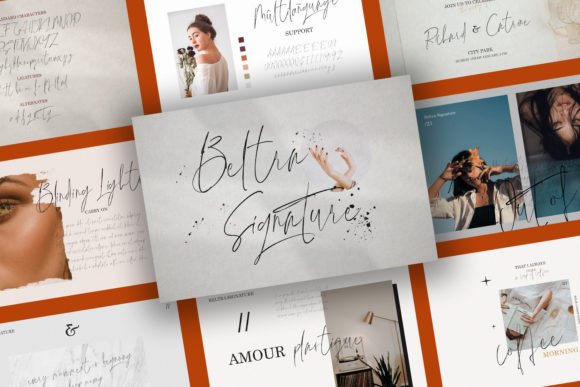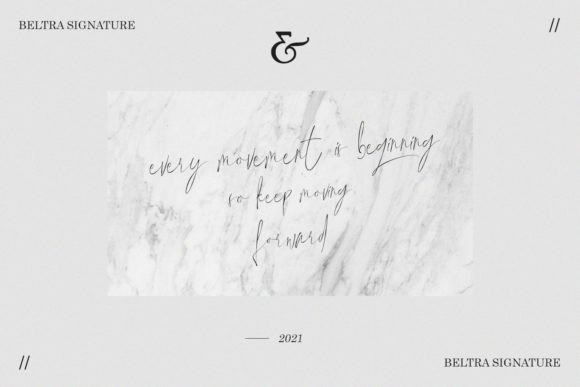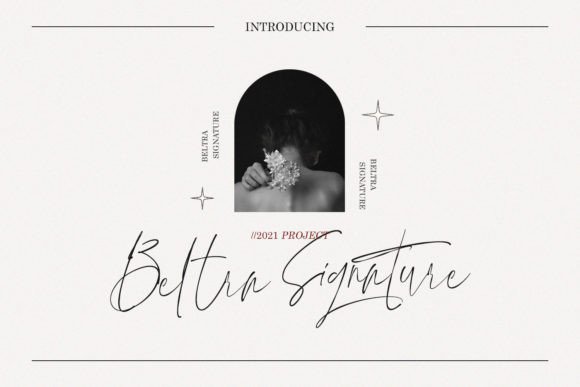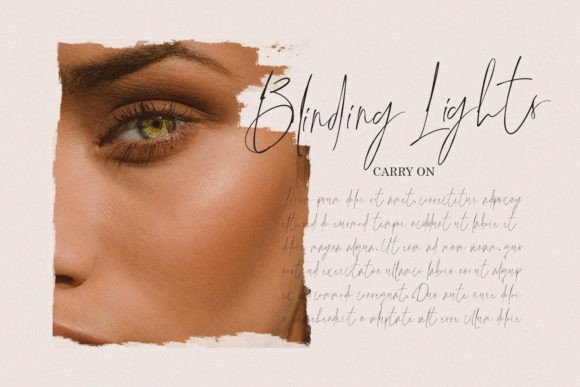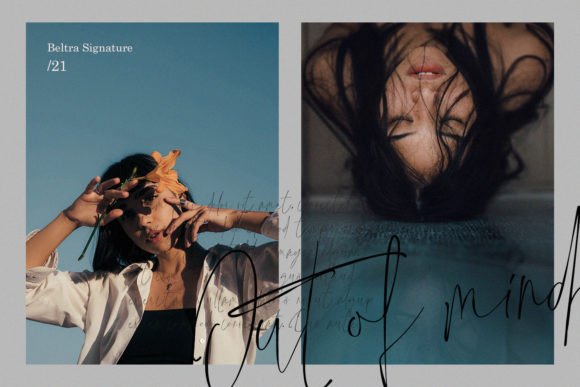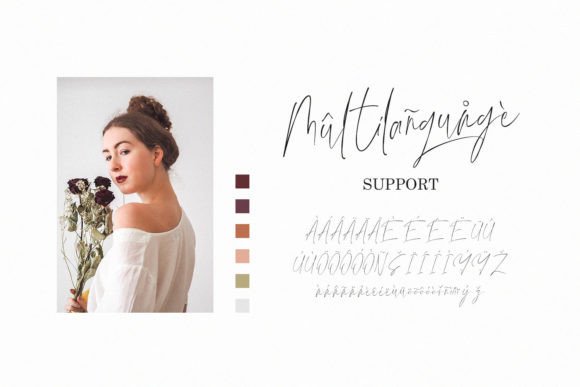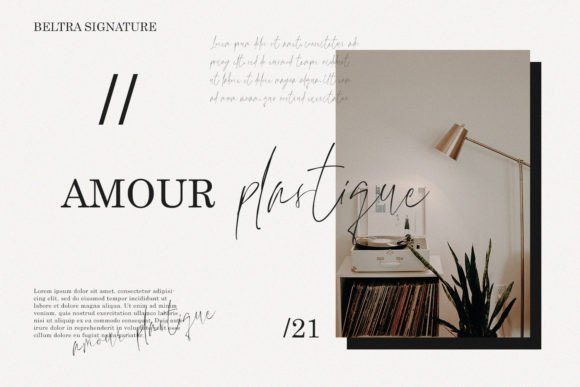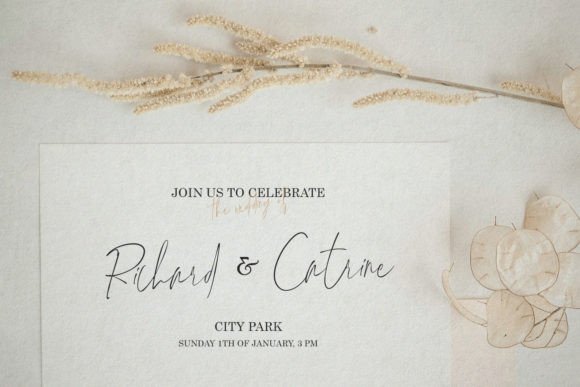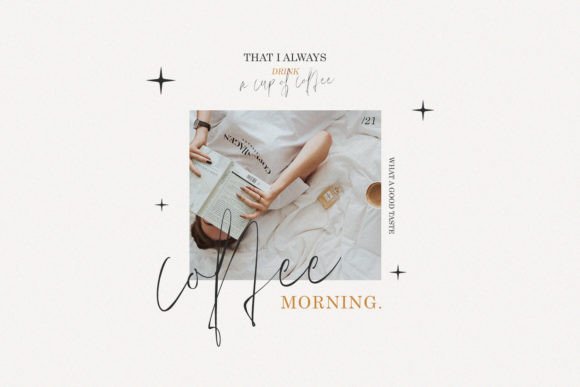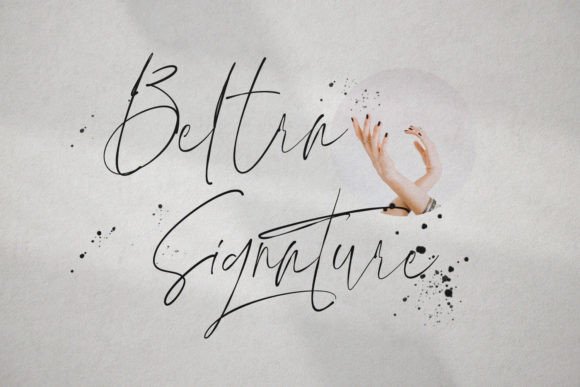
Beltra Signature
About Beltra Signature
Beltra Signature is a modern and flowing handwritten font that brings elegance to the center of attention. The font suggests its use for creating wedding invitations, event posters, magazines, and anything that requires a sumptuous art form.